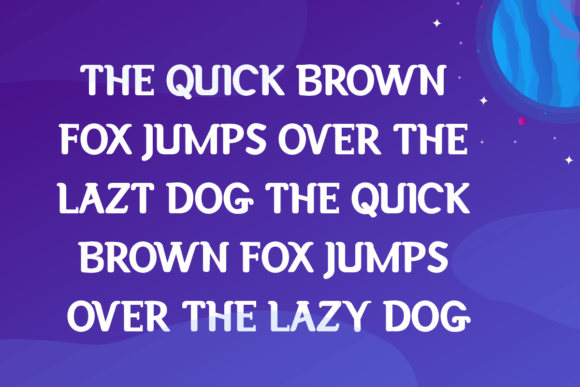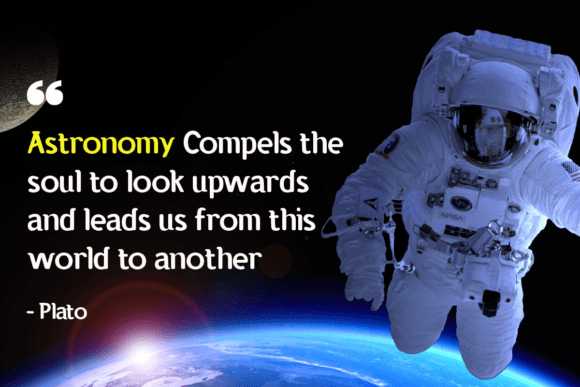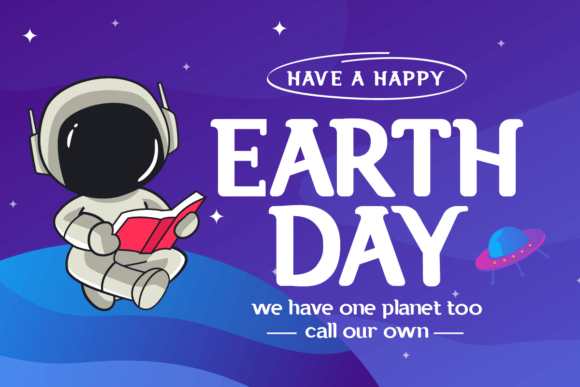
Introduction to Kluaq Font
Introducing Kluaq – the perfect choice for those who seek a retro-modern and fun typeface.
This font brings a unique touch to any design project, with its playful yet professional look With Kluaq, you can easily create eye-catching designs that stand out from the rest.
Key Features of Kluaq Font
Why Choose Kluaq Font?
Kluaq Font offers exceptional quality and versatility, making it a valuable addition to your design toolkit. Whether you’re creating for personal projects or commercial use, Kluaq Font delivers professional results.